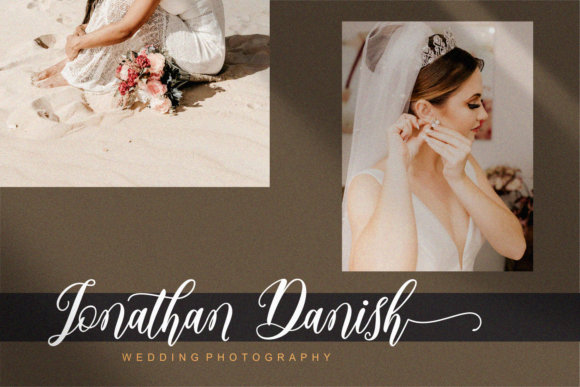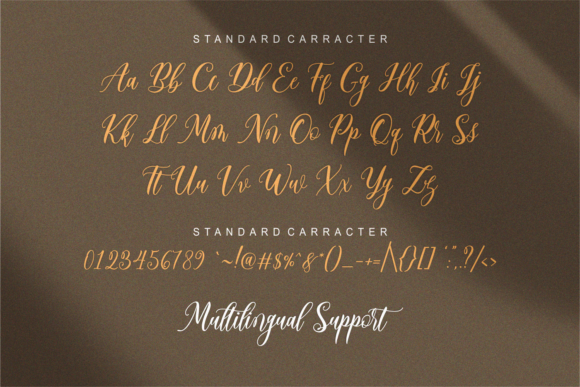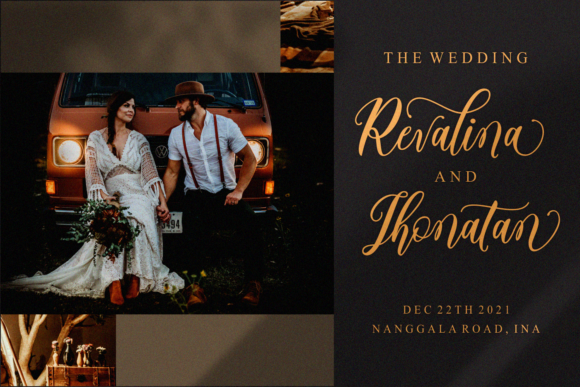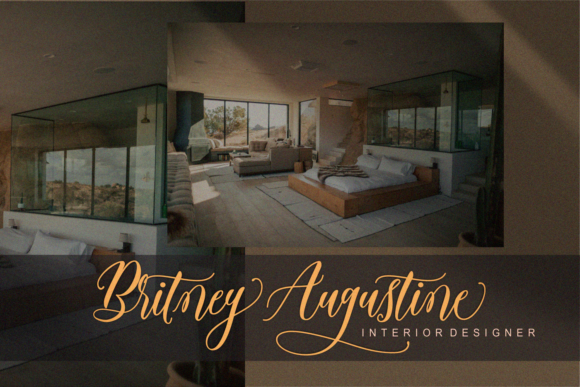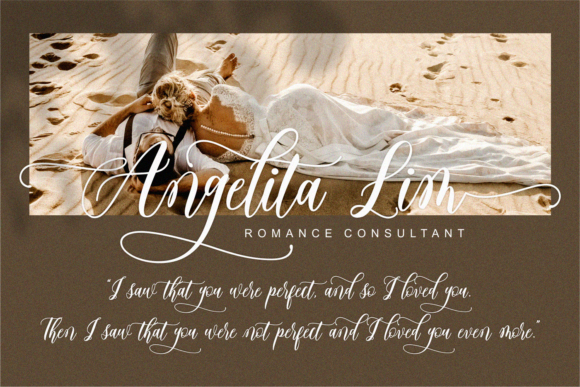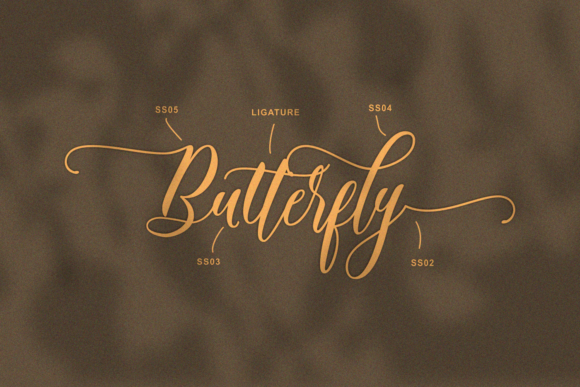
Introducing Angelina Font: Elevate Your Design with Luxury and Elegance
Are you looking for a font that can add a touch of luxury and sophistication to your design projects? Look no further than Angelina Font, a beautiful and light handwritten font that is sure to make a stunning impact. With its elegant and refined aesthetic, Angelina Font is perfect for designers and crafters who want to create high-end designs that exude luxury and style.
What Makes Angelina Font So Special?
Angelina Font is a unique and versatile font that offers a range of features that make it stand out from the crowd. Here are just a few of the things that make Angelina Font so special:
- Beautiful Handwritten Style: Angelina Font features a gorgeous handwritten style that is both elegant and refined. The font’s light and airy feel makes it perfect for designs that require a touch of sophistication and luxury.
- PUA Encoded: Angelina Font is PUA encoded, which means that you can access all of the amazing glyphs and ligatures with ease. This makes it easy to create complex and beautiful designs that showcase the font’s full range of features.
- Ligatures and Glyphs: With Angelina Font, you’ll have access to a wide range of ligatures and glyphs that allow you to create unique and customized designs. Whether you’re looking to add a touch of whimsy or create a more formal design, Angelina Font has got you covered.
How to Use Angelina Font in Your Design Projects
Angelina Font is incredibly versatile and can be used in a wide range of design projects, from branding and packaging to stationery and digital designs. Here are a few ideas for how you can use Angelina Font in your next design project:
- Branding and Packaging: Use Angelina Font to create luxurious and high-end branding and packaging designs that showcase your product in the best possible light.
- Stationery and Invitations: Create beautiful and elegant stationery and invitations that feature Angelina Font’s stunning handwritten style.
- Digital Designs: Use Angelina Font to create stunning digital designs, such as social media graphics, website headers, and more.
Tips and Tricks for Getting the Most Out of Angelina Font
Here are a few tips and tricks for getting the most out of Angelina Font:
- Use Ligatures and Glyphs to Add Visual Interest: Take advantage of Angelina Font’s ligatures and glyphs to add visual interest and create a more dynamic design.
- Pair with Other Fonts: Consider pairing Angelina Font with other fonts to create a unique and customized look.
Angelina Font is a beautiful and luxurious handwritten font that is perfect for designers and crafters who want to create high-end designs that exude style and sophistication. With its PUA encoding, ligatures, and glyphs, Angelina Font offers a range of features that make it easy to create stunning and customized designs. Whether you’re looking to create branding and packaging, stationery and invitations, or digital designs, Angelina Font is the perfect choice.
- Beautiful handwritten font
- Light and airy feel
- Perfect for luxury and high-end designs
- Versatile and can be used in a wide range of design projects